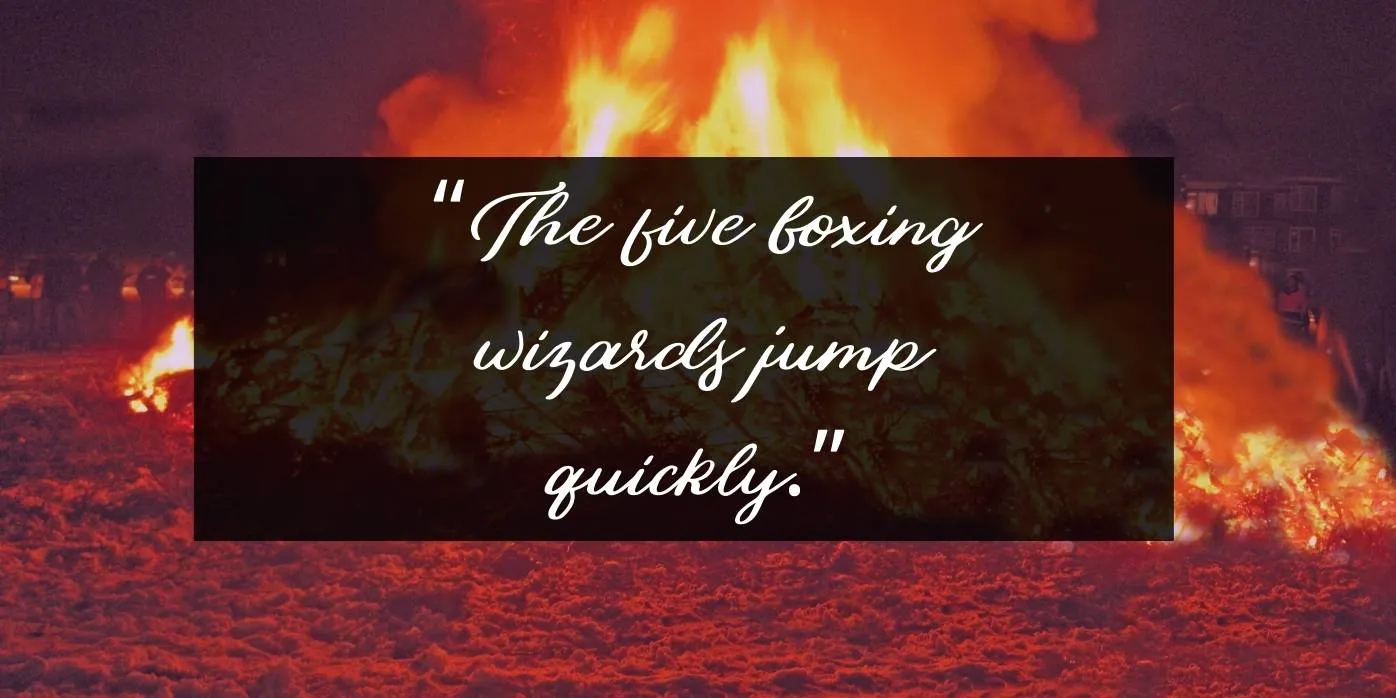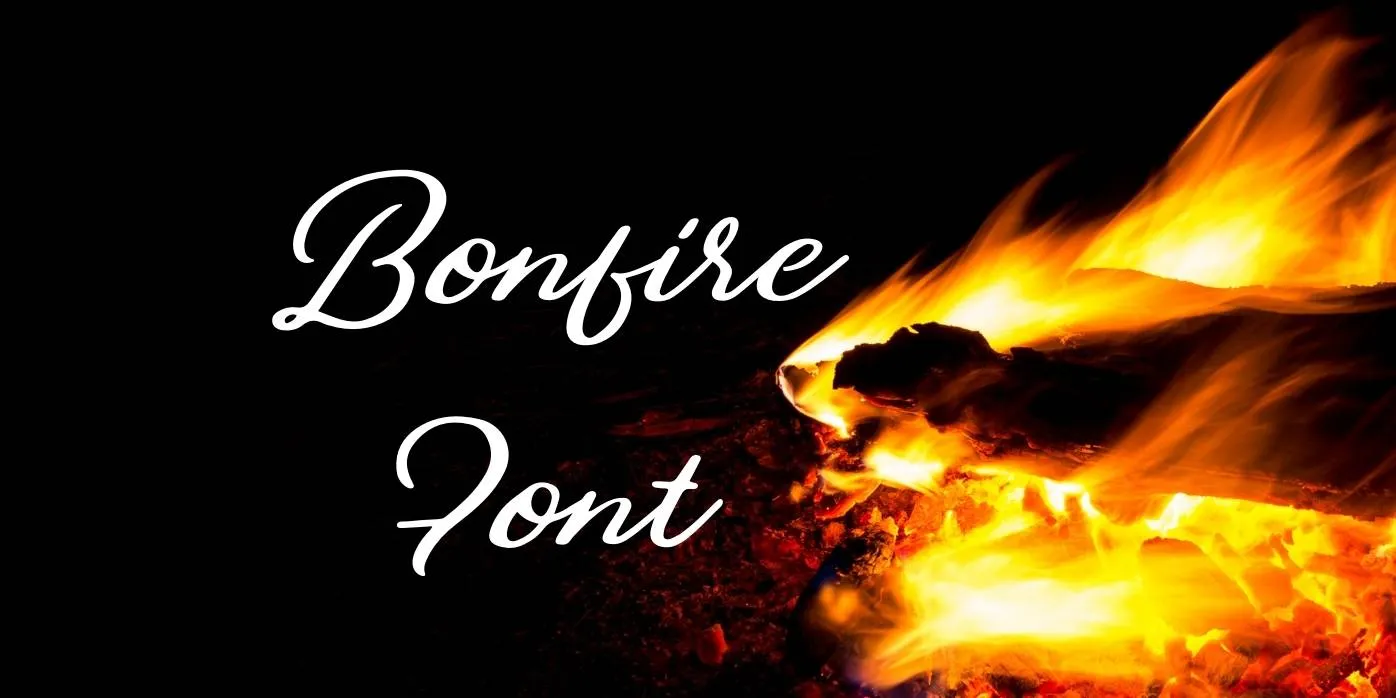
Bonfire Font
In this post, we are consulting on a new attractive font that is Bonfire Font. This cozy font was developed by Hustle Supply Co. It belongs to the Script typeface family.  It includes 4 different styles: Regular, Bold, Black, and Light. You can use this font for both personal and commercial purposes.
You can also utilize its generator tool for various designs. This typeface has a similar typeface that is Elizabeth Font. This typeface also included many awesome characters like the uppercase, lowercase, numbers, and punctuation marks. Its copy and paste function is best for different designs.
You can use this font for various purposes such as branding, and logos. If you are looking for a stylish and elegant font then Bonfire Font is suitable. It will surely give a beautiful and attractive look to your design.